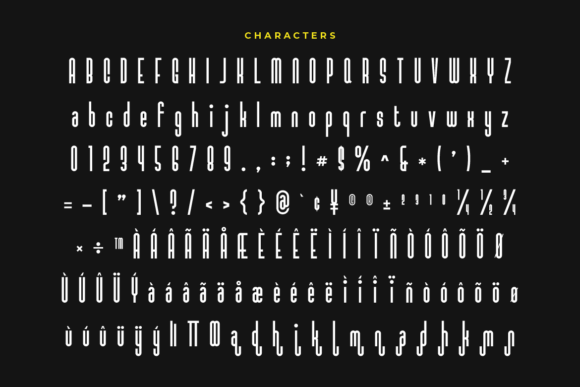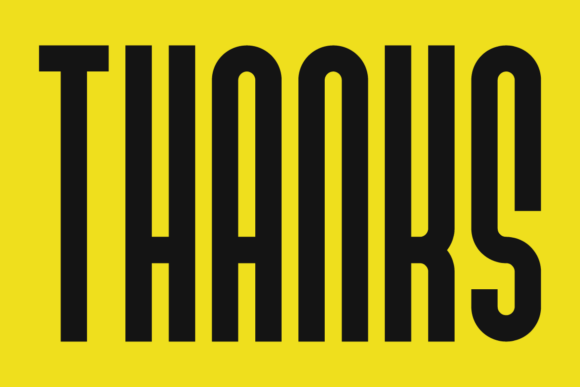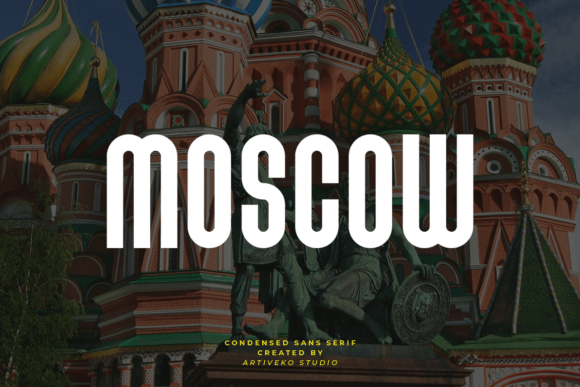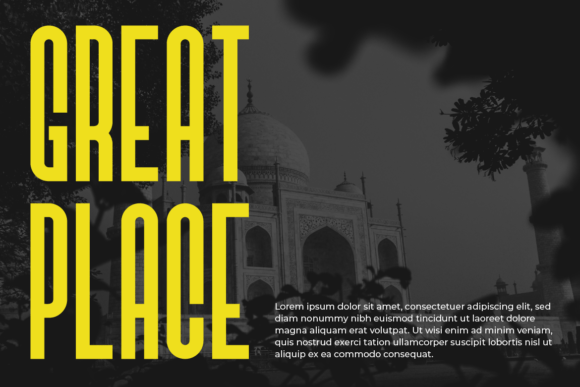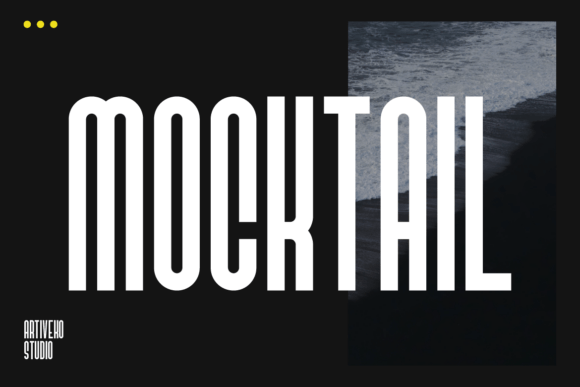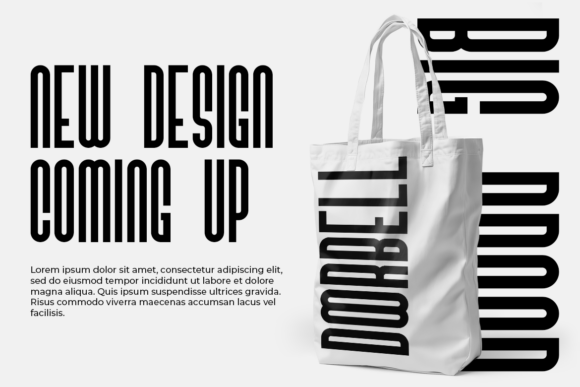
Introduction to Moendem Font
Moendem is a strong and stylish condensed sans serif font designed to maximize impact while saving space.
Featuring clean lines, tall proportions, and a sleek structure, Moendem is ideal for branding, posters, headlines, editorial layouts, and digital content that demands attention .
Key Features of Moendem Font